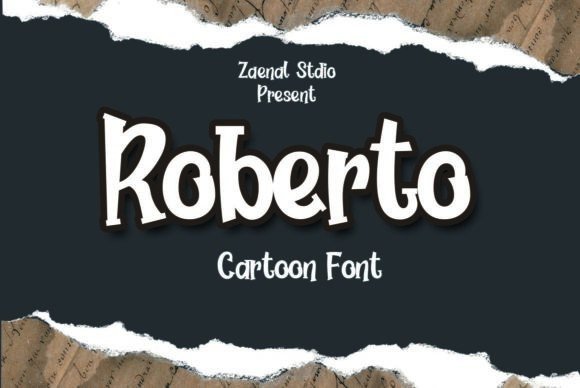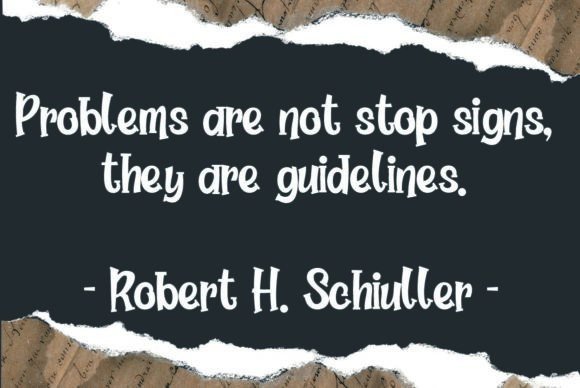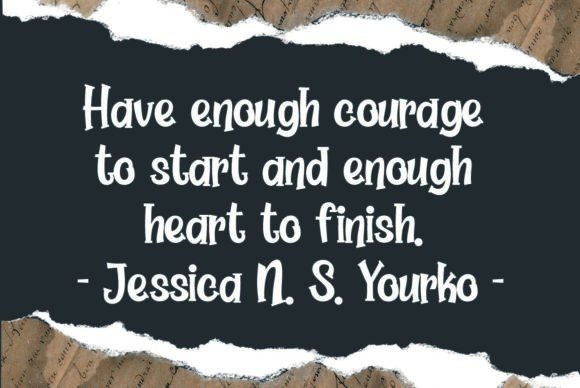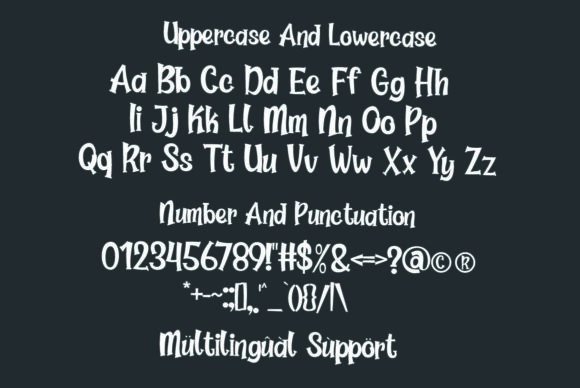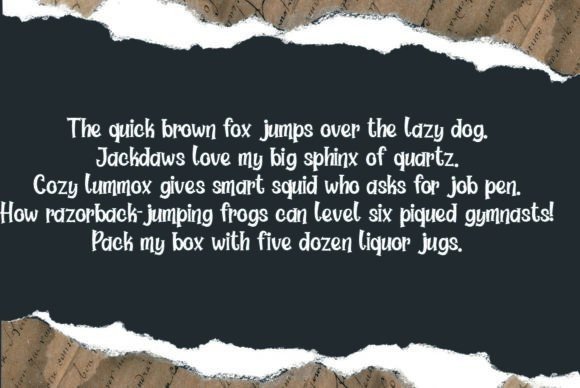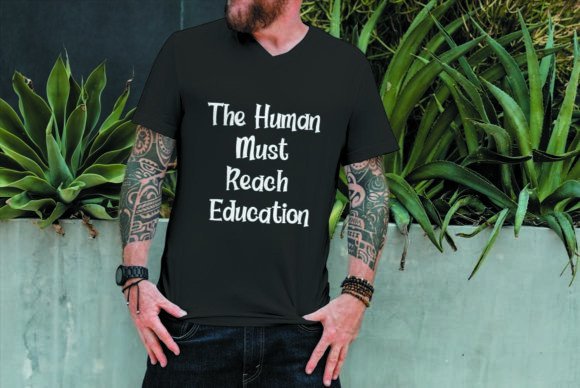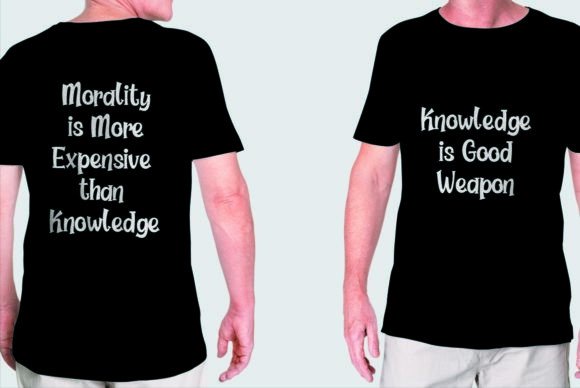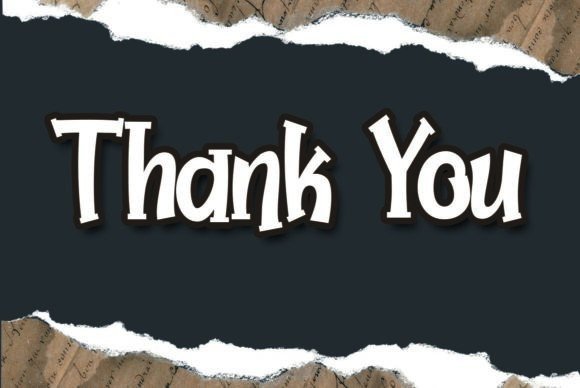
Roberto Font
The Roberto Font Download offers a bold, modern, and playful typeface that brings instant joy to any design project. Its unique cartoon style makes it stand out from regular fonts, giving every letter a fun and creative touch. Designed with children and youthful themes in mind, this font is a perfect choice for projects that require energy, friendliness, and a modern look. Whether you are working on digital graphics, printed invitations, or playful branding, the Roberto font delivers an unforgettable vibe.
A Bold and Modern Look
Roberto is not just another playful font—it is a bold design that captures attention immediately. Each character is drawn with careful detail, making the typeface modern yet timeless. This balance ensures that your work looks fresh while still maintaining a friendly and approachable style. Many designers choose the Roberto Font Download when they want a font that combines fun with professionalism.
Perfect for Kids and Playful Projects
This typeface is specially crafted for children and kid-friendly themes. The playful curves and cartoon-style letters make it ideal for projects like kindergarten branding, birthday invitations, school posters, or activity books. Kids respond well to fonts that feel lighthearted, and Roberto is tailored to bring a smile. Parents, teachers, and designers who work with young audiences will find this typeface especially useful.
Ideal for Comics and Creative Work
If you are a fan of comic-style designs, the Roberto Font Download will be your go-to choice. Its fun lettering style mimics the energy of cartoons and comics, making it ideal for storybooks, animated branding, or even social media graphics. With Roberto, your text feels alive—perfect for speech bubbles, playful quotes, or themed advertising.
Versatile for Branding and Marketing
While Roberto has a fun side, it is also versatile enough for branding and marketing materials. Companies that target families, children’s products, or creative industries can use this font to establish a playful and welcoming identity. From packaging designs to promotional posters, Roberto ensures your message is bold and engaging.
Why Designers Love Roberto
Designers love Roberto because it blends fun with clarity. Unlike overly decorative typefaces, it remains readable at different sizes while still looking unique. Its playful character appeals to a wide audience, from kids to adults who enjoy cartoon aesthetics. With Roberto, you don’t sacrifice legibility for creativity—you get both in one package.
Add Fun to Your Next Project
Whether you are designing for children, planning a birthday party, creating a comic strip, or branding a playful business, the Roberto Font Download is a must-have. It adds the right mix of boldness, creativity, and charm to your work. Add it to your collection today, and let every design project radiate joy and personality.